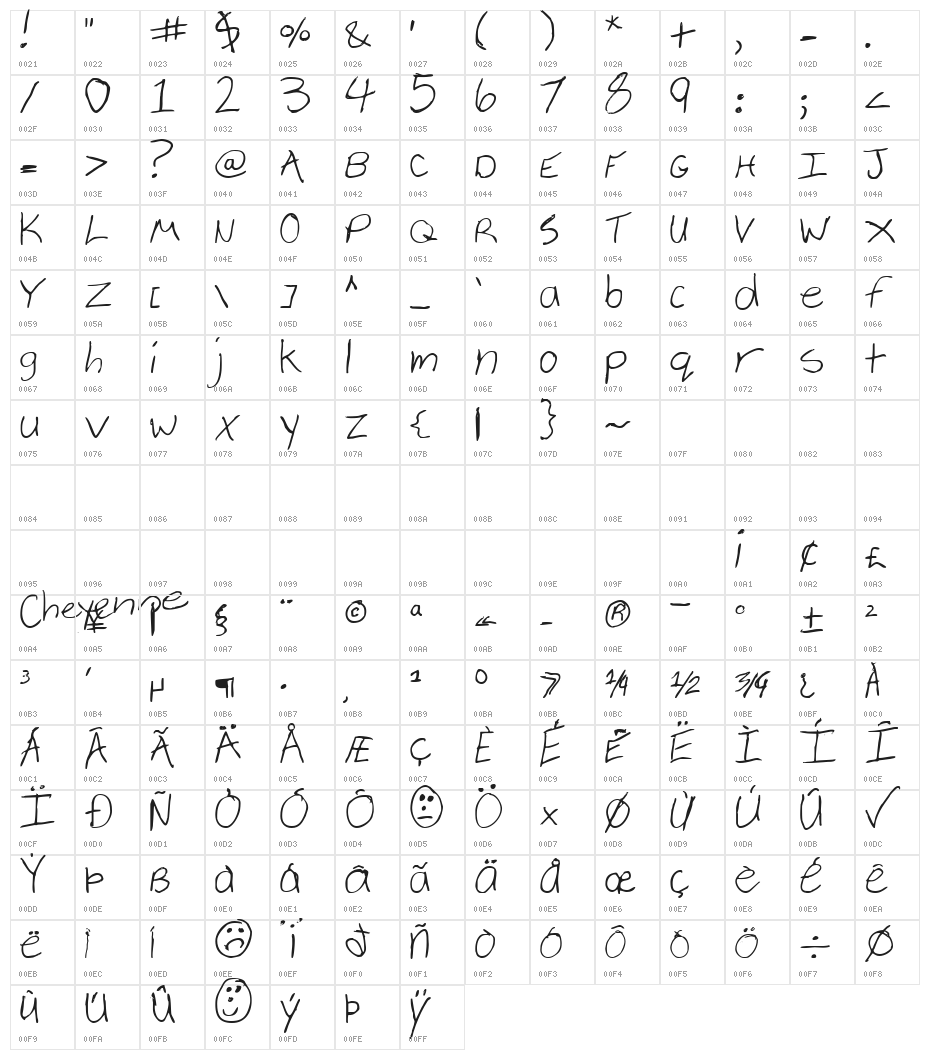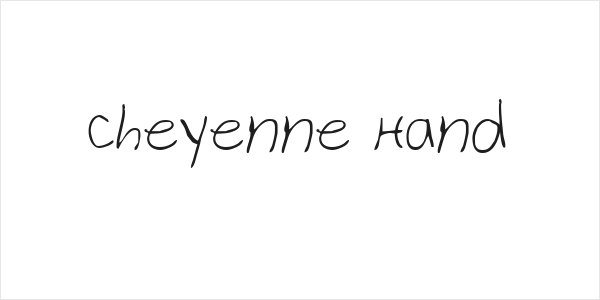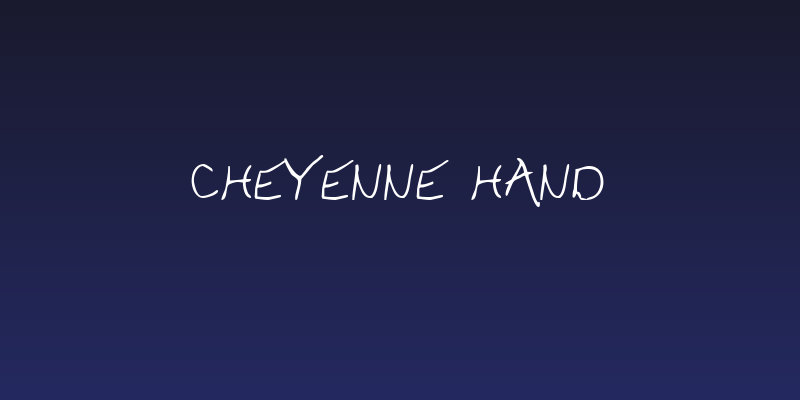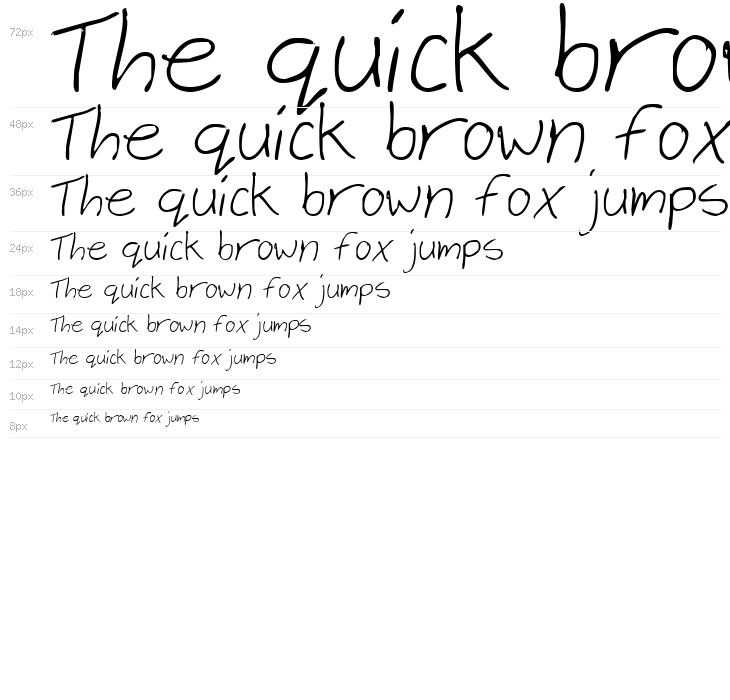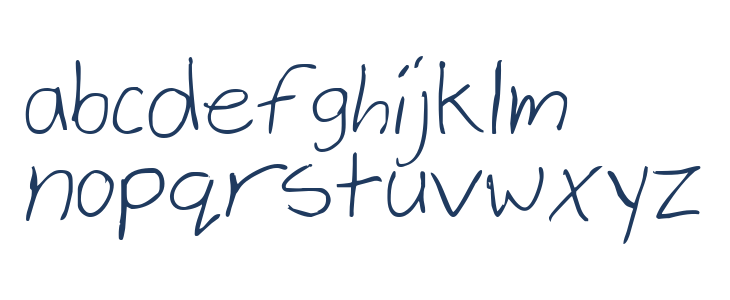
Cheyenne Hand Font
Cheyenne Hand Description
This font exudes a casual, handwritten style with a playful and organic feel. The letters are slightly irregular, mimicking the natural flow of handwriting. The strokes vary in thickness, adding to the authentic handwritten appearance. The uppercase letters are bold and expressive, while the lowercase letters maintain a consistent flow. Numbers and special characters are designed to match the overall style, ensuring a cohesive look across all text. This font is perfect for projects that require a personal touch, such as invitations, greeting cards, or creative branding.
| Use Case | Headlines, Creative projects, Personal branding |
| Proposed Projects | Ideal for invitations, greeting cards, personal branding, and creative projects. |